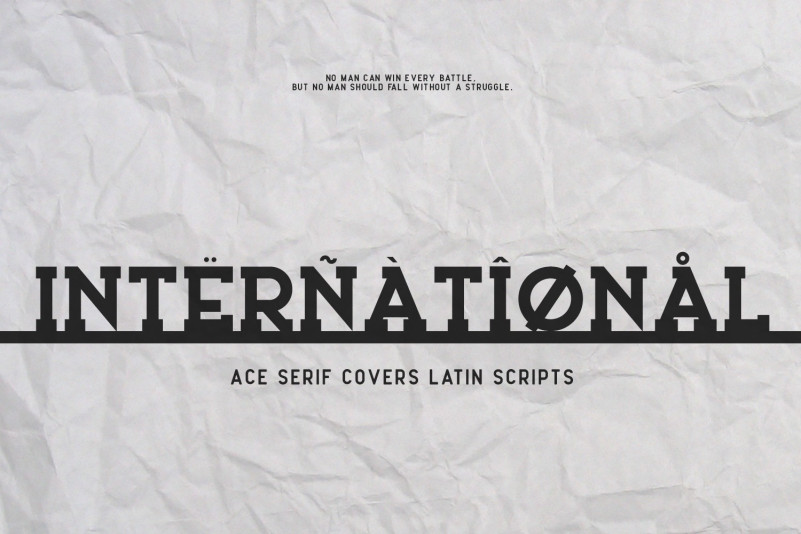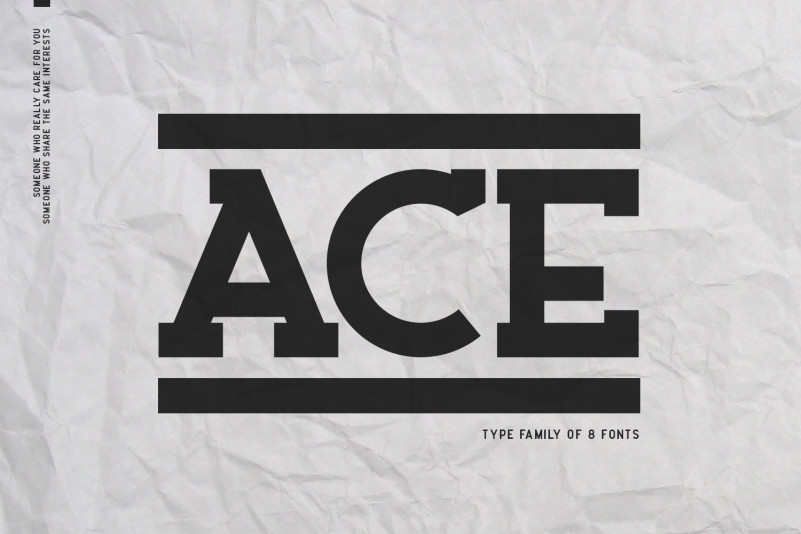
Ace Font
Ace Font is a classic and bold serif font family. The combination of simple and geometric elements renders a bold design. Ace Serif family includes 8 fonts, simple and old caps, thereby creating more variability. This is irreproachable sans serif to diversify your headlines, branding visual identity, poster, logo, magazines and etc.
– 8 Weights Serif (Thin, Extralight, Light, Regular, Medium, Bold, Extrabold, Black)
– Basic Latin A-Z and a-z
– Numerals & Punctuation
– Multilingual Support for ä ö ü Ä Ö Ü …